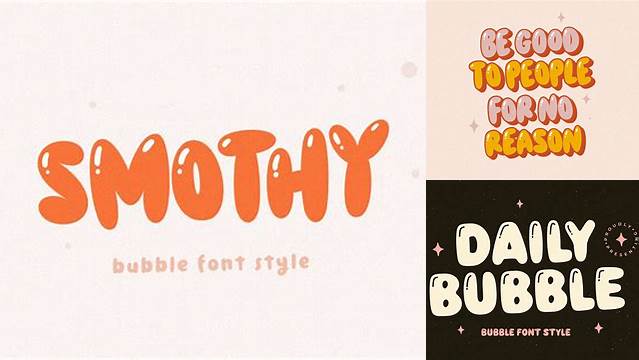
Free Smothy Bubble Font Download: Your Guide
Hey guys! Are you looking to add a playful and unique touch to your designs? Look no further! Smothy Bubble Font is here to save the day. This adorable and bubbly typeface is perfect for a wide range of projects, from eye-catching logos and branding materials to fun social media graphics and engaging website headers. In this comprehensive guide, we'll dive deep into the world of Smothy Bubble Font, exploring its characteristics, ideal uses, where to find it for free download, and even provide tips on how to best incorporate it into your creative endeavors. So, buckle up and get ready to unleash your inner designer with this fantastic font!
What Makes Smothy Bubble Font So Special?
Smothy Bubble Font stands out from the crowd with its distinctive rounded edges and playful curves, which evoke a sense of warmth, friendliness, and approachability. Its bubbly, almost cartoonish appearance makes it an excellent choice for projects that aim to convey a sense of fun, youthfulness, and creativity. The soft, smooth lines of each character give the font a gentle and inviting feel, making it perfect for designs targeting children, families, or anyone who appreciates a touch of whimsy. But what exactly makes this unique font so special? Let's break it down further.
First, the rounded edges of the letters create a soft and approachable aesthetic. Unlike sharp, angular fonts that can sometimes feel harsh or aggressive, Smothy Bubble Font exudes a sense of playfulness and friendliness. This makes it ideal for projects that aim to connect with audiences on an emotional level, such as children's books, greeting cards, or even branding for businesses that want to project a warm and welcoming image. Imagine a children's clothing brand using Smothy Bubble Font for their logo – it instantly communicates a sense of fun and comfort, drawing parents and kids alike.
Second, the playful curves of the characters add a touch of uniqueness and character to the font. Each letter seems to dance and bounce, creating a dynamic and engaging visual experience. This playful quality makes Smothy Bubble Font a great choice for designs that need to stand out and grab attention. Think about using it for a social media campaign, a website header, or even a poster for a local event. The font's inherent playfulness will help your message cut through the noise and make a lasting impression.
Finally, the overall design of Smothy Bubble Font is incredibly versatile. While it's certainly well-suited for playful and lighthearted projects, it can also be used in more sophisticated designs to add a touch of personality and charm. For instance, a bakery might use Smothy Bubble Font for their menu to create a warm and inviting atmosphere. Or, a creative agency could incorporate it into their branding to showcase their innovative and playful approach. The key is to use the font strategically and in a way that complements the overall message and aesthetic of your project. This versatile font can be your secret weapon in crafting memorable designs.
Ideal Uses for Smothy Bubble Font
The versatility of Smothy Bubble Font shines through in its wide range of potential applications. From branding and marketing to personal projects and creative endeavors, this font can add a touch of personality and charm to virtually any design. Whether you're designing a logo, creating a social media campaign, or crafting a heartfelt greeting card, Smothy Bubble Font can help you achieve your creative vision. Let's explore some specific scenarios where this font truly excels.
Consider branding and logos. Smothy Bubble Font is an excellent choice for brands that want to project a playful, friendly, and approachable image. Its soft, rounded edges and cheerful curves can help create a logo that is both memorable and inviting. Think about businesses like toy stores, children's clothing boutiques, or even ice cream parlors – Smothy Bubble Font can perfectly capture the essence of their brand. The font's inherent warmth and charm can help these businesses connect with their target audience on an emotional level, fostering brand loyalty and recognition. A well-designed logo is crucial, and Smothy Bubble Font can help you make a lasting impression.
Moving on to marketing materials, such as posters, flyers, and brochures, Smothy Bubble Font can be used to grab attention and convey a sense of fun and excitement. Imagine using it for a flyer promoting a children's event, a poster for a school play, or a brochure for a summer camp. The font's playful nature will instantly draw people in and make them want to learn more. Its unique design will help your marketing materials stand out from the competition and make a memorable impact. Using Smothy Bubble Font ensures your message is both seen and felt.
Social media graphics and website headers are another fantastic application. In the fast-paced world of social media, it's crucial to have visuals that stand out and capture attention. Smothy Bubble Font can help you create eye-catching graphics and headers that will draw users in and encourage them to engage with your content. Its cheerful and inviting aesthetic can help you create a brand presence that is both professional and approachable. A captivating website header is the first thing visitors see, and Smothy Bubble Font can ensure it's a positive experience. It can also be used for personal projects like invitations, greeting cards, and scrapbooking, where its playful and whimsical nature can add a special touch to your creations. Whether you're designing a birthday invitation for a child, a thank-you card for a friend, or a scrapbook page commemorating a special memory, Smothy Bubble Font can help you create a heartfelt and personalized design. It brings a touch of joy to every project.
In conclusion, Smothy Bubble Font is a fantastic addition to any designer's toolkit. Its playful charm and versatility make it perfect for a wide range of projects. By understanding its unique characteristics, exploring its ideal uses, finding reliable download sources, and following our tips for incorporating it effectively, you can unlock the full potential of this adorable font and create designs that are both eye-catching and engaging. Happy designing, guys!